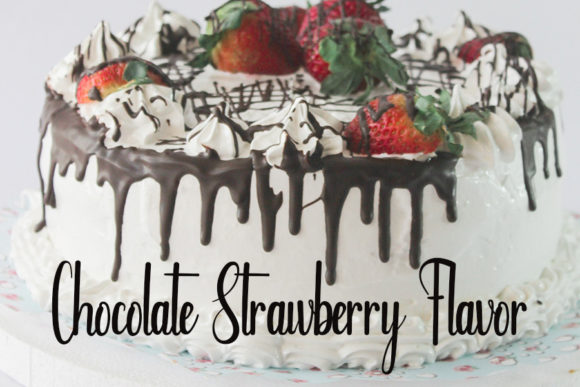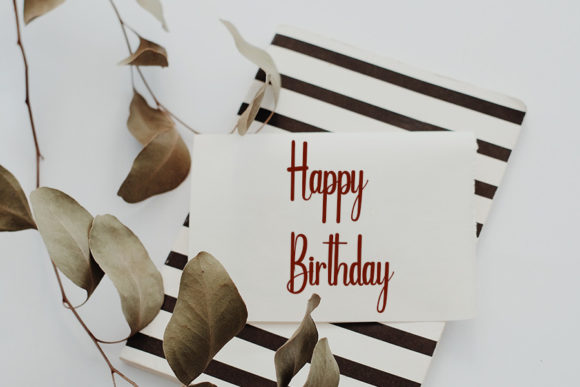
Formal Invitation Font
db-ku.com - Script & Handwritten -- Formal Invitation is a beautiful and versatile handwritten font with a unique feel and a stunning impact. It will add a lovely spark to any design or creative project you have coming up.